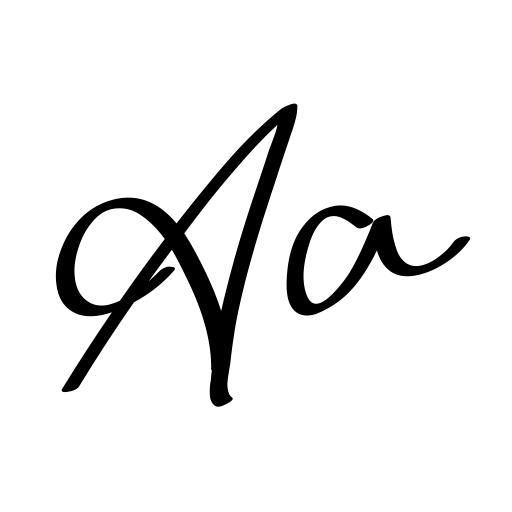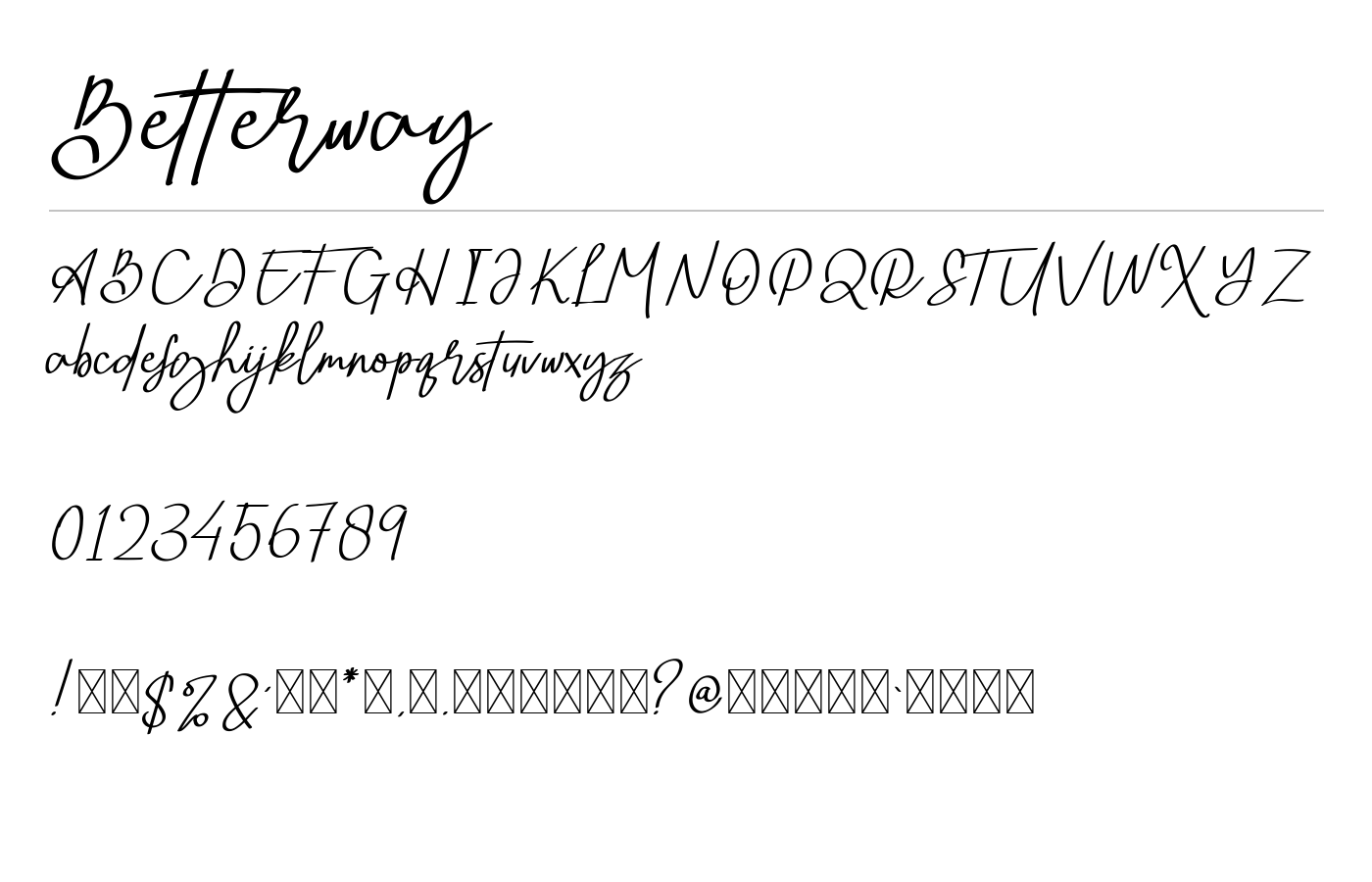
Betterway is a graceful script font with a modern, handwritten feel characterized by its flowing, slender strokes and elegant letterforms. It is ideal for adding a personal, sophisticated touch to invitations, branding, and editorial projects where a stylish yet approachable look is desired. This font works well in headlines and decorative text, bringing charm and creativity without overwhelming the design.
Betterway Font
About Betterway Font
| Font family | Betterway Font |